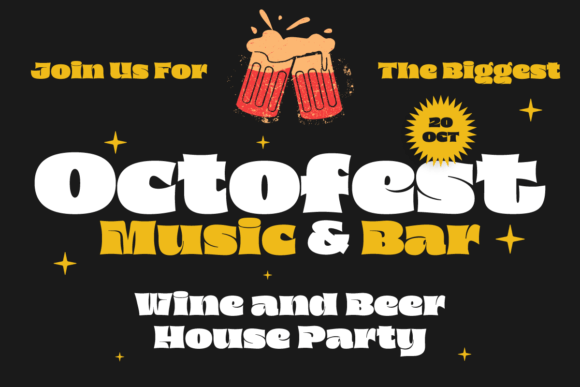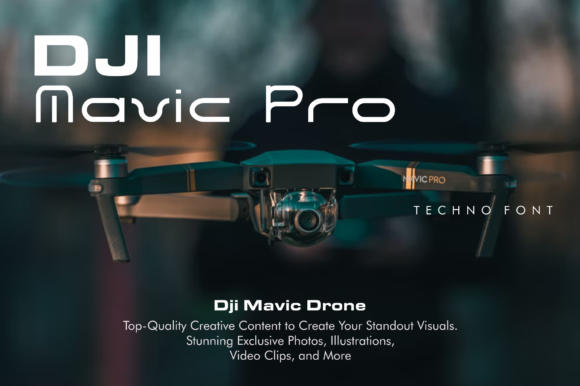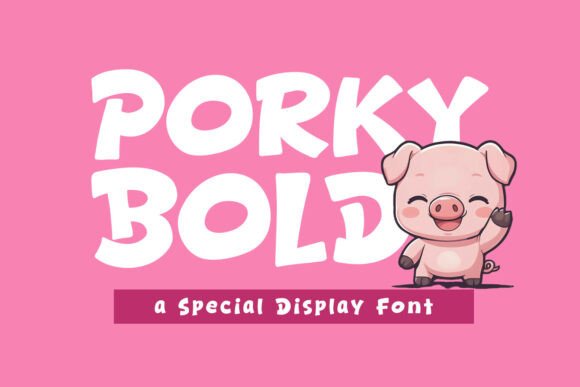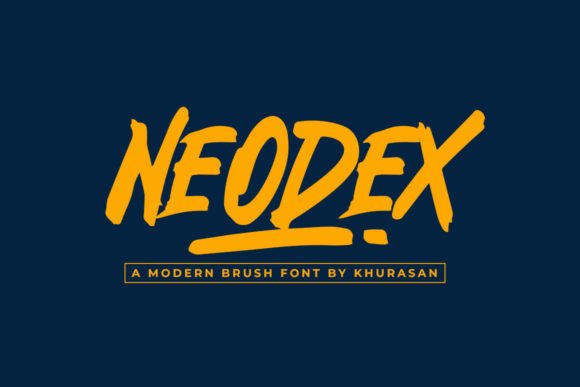
16 Unique Bold Display Fonts You Need in Your Toolkit
Level up your visual identity with Bold Display Fonts today using these 16 unique typography choices you absolutely need to keep in your design toolkit for creating commanding logos, striking posters, and branding that instantly stands out!
Temur Amorak Urban Bold Brush Font: A Raw Powerhouse for Your Bold Display Fonts Collection
Shatter the quiet of conventional design with Temur Amorak, a high-octane brush typeface carefully engineered to bring aggressive motion and fierce attitude straight to your layouts. Characterized by its sharp, jagged edges and fast, expressive strokes, this eye-catching design captures a gritty, rebellious aesthetic that instantly commands the room. It serves as an exceptionally confident, high-energy addition to your personal collection of Bold Display Fonts.
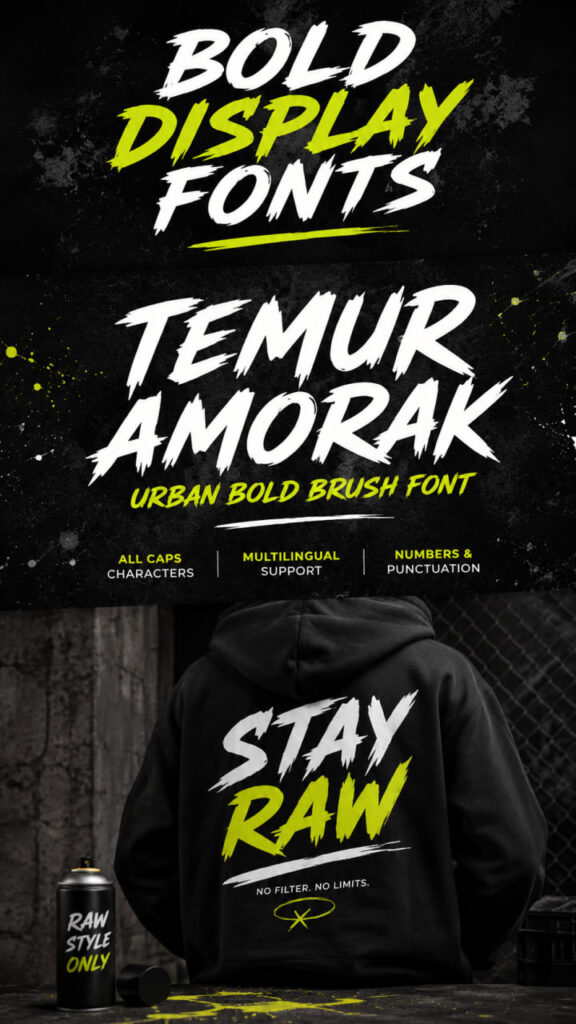
This striking typeface is packed with incredible details, featuring full uppercase characters, unique ligatures that replicate the natural flow of wet ink, and comprehensive multilingual support. It is the absolute ultimate choice for styling heavy metal concert posters, high-impact sports branding, gaming content overlays, streetwear packaging, and dramatic cinematic titles. Bring Temur Amorak into your visual arsenal today to lock down a gritty, unapologetic aesthetic that refuses to stay in the background!
Bad Bold Grunge Font: Rugged Western Textures for Your Bold Display Fonts Collection
Strap in for a wild ride through the dust-covered archives of vintage Americana with Bad Bold Grunge, a rugged powerhouse typeface that instantly teleports your canvas to the era of sun-baked frontiers and weathered saloons. Heavily inspired by distressed western posters, crackling retro signage, and beautifully worn print block textures, this design stands out as a gritty, high-impact asset for your personal library of Bold Display Fonts. Every character is meticulously stamped with organic, raw imperfections that give your text a tactile, hand-crafted weight.
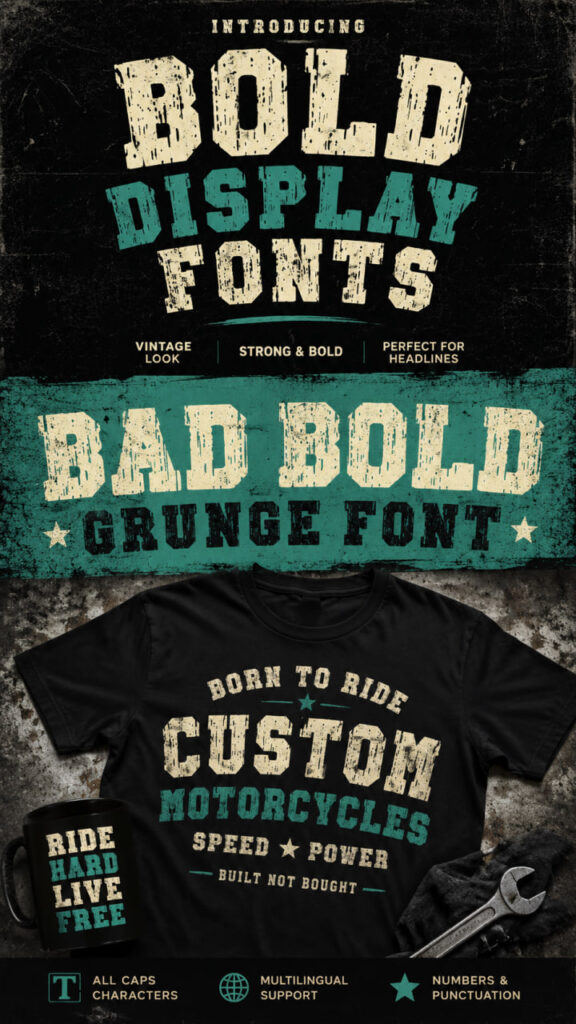
This defiant typeface is the perfect match for bold packaging, rebellious apparel prints, rustic logos, and cinematic album covers seeking a genuine retro personality. Its heavy, unapologetic forms bring an undisputed presence to both physical merchandise and digital social media layouts with absolute ease. Harness the untamed spirit of the wild West today and let this raw, distressed masterpiece ride shotgun on your next great design adventure!
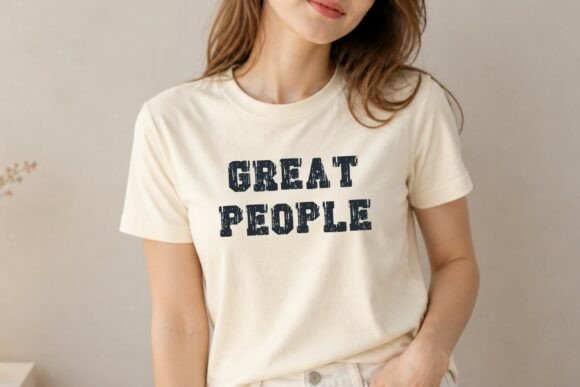
Bold Eater Font: A Delicious Addition to Your Bold Display Fonts Collection
Satisfy your appetite for playful design and serve up some serious charm with Bold Eater, an incredibly fun and chunky typeface crafted to bring delicious energy to your canvas. With its delightfully thick letterforms and soft, pillowy curves, this high-energy option makes a mouth-watering addition to your curated selection of Bold Display Fonts. It is masterfully engineered to evoke the cozy, comforting warmth of fresh-baked goods and gourmet treats, making your text look instantly welcoming and appetizing.
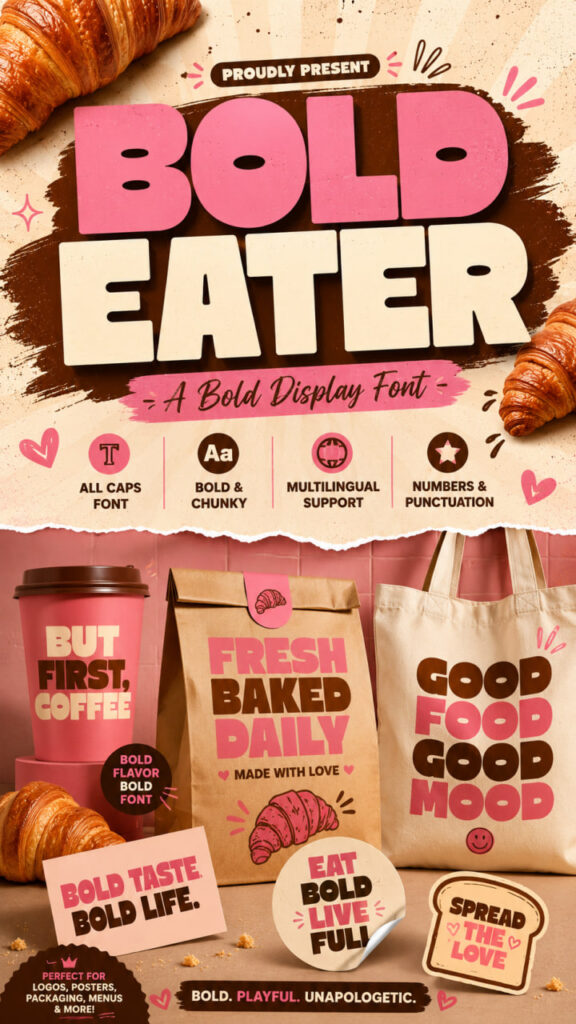
Whether you are styling playful bakery branding, colorful snack packaging, or modern café menus, Bold Eater ensures your layout stands out with a cheerful, crave-worthy personality. It functions flawlessly as an eye-catching tool for restaurant posters, custom product labels, festive food promotions, and bold headline designs. Bring Bold Eater into your creative kitchen today and let its joyful, friendly shapes cook up your next delicious masterpiece!
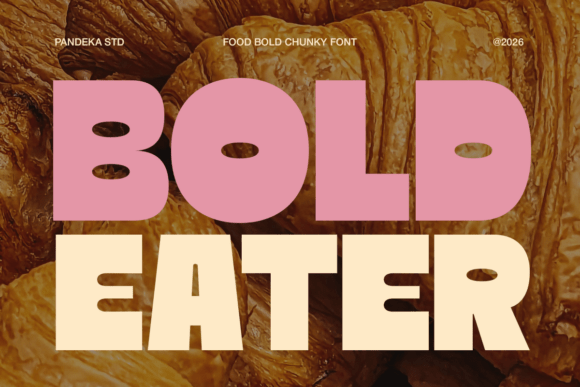
Mirage Bold Font: A Mesmerizing Addition to Your Bold Display Fonts Collection
Unveil a highly polished dimension of visual allure with Mirage Bold, a striking display typeface engineered to warp the boundaries between classic structure and modern mystique. Designed with a unique and contemporary spirit, this eye-catching powerhouse stands out as a highly sophisticated addition to your curated selection of Bold Display Fonts. Its balanced yet unexpected shapes give your words a confident, premium weight that instantly commands attention on any canvas.
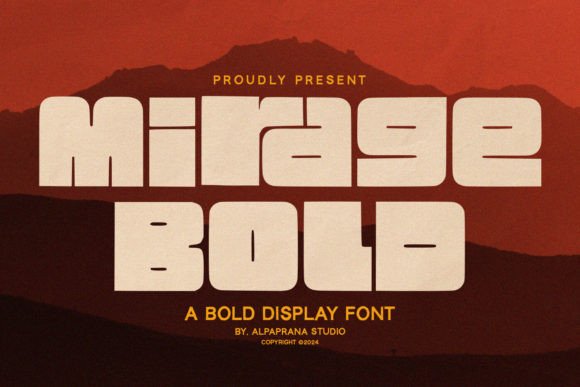
This modern marvel performs with supreme elegance across both physical merchandise and high-end digital layouts, making it an incredibly versatile tool for sleek fashion campaigns, cinematic book covers, custom streetwear apparel, and chic shopping bags. Whether you are crafting prominent editorial headers, designing memorable logotypes, or preparing custom posters for special events, Mirage Bold shapes your message with flawless precision. Welcome this elegant giant into your creative toolkit today and let its unique, contemporary soul transform your next composition into a breathtaking visual masterpiece!
Alusion Bold Font: A Quirky Wonder for Your Bold Display Fonts Collection
Ditch the rigid lines of traditional layouts and invite a delightful wave of offbeat energy into your workspace with Alusion Bold, a bouncy and highly expressive display face designed to make your words dance. Combining unexpected, quirky angles with a modern, fresh posture, this eye-catching powerhouse stands out as a uniquely charismatic addition to your curated selection of Bold Display Fonts. Its cheerful, asymmetric anatomy gives your titles an instant, friendly volume that naturally keeps eyes glued to your canvas.
Still Looking for Your Perfect Bold Display Fonts?